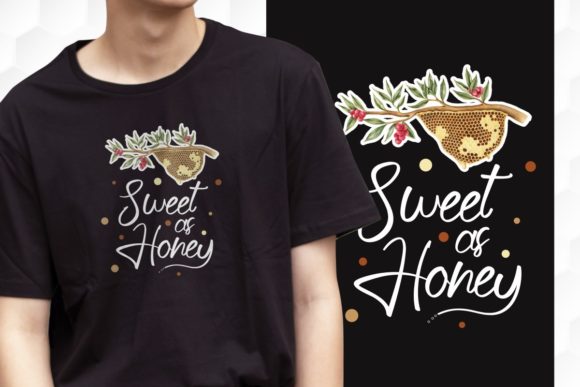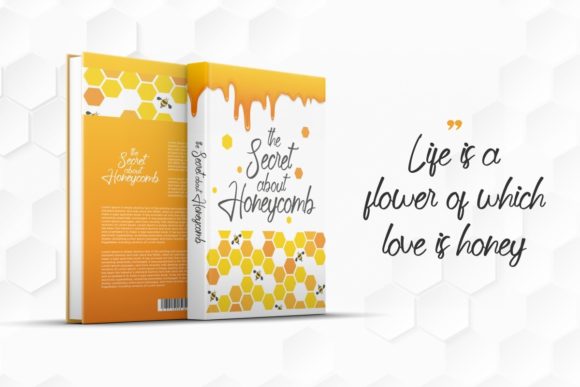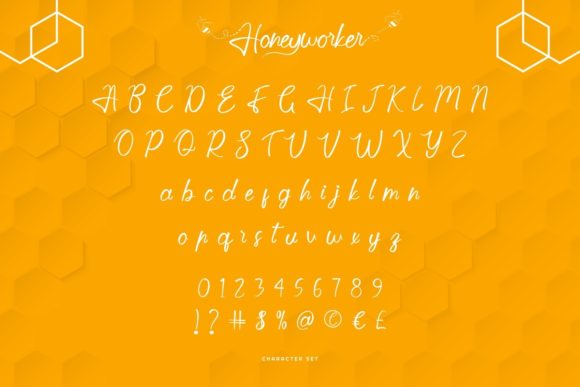
Introduction to Honeyworker Font
Honeyworker is a sweet and cursive handwritten font.
This gentle font will look gorgeous on a variety of design ideas Honeyworker is PUA encoded which means you can access all of the glyphs and swashes with ease.